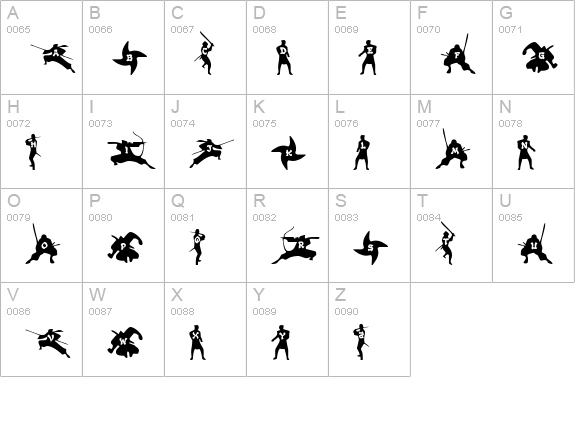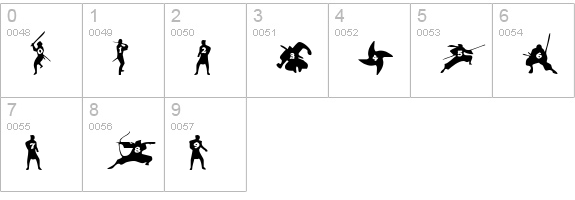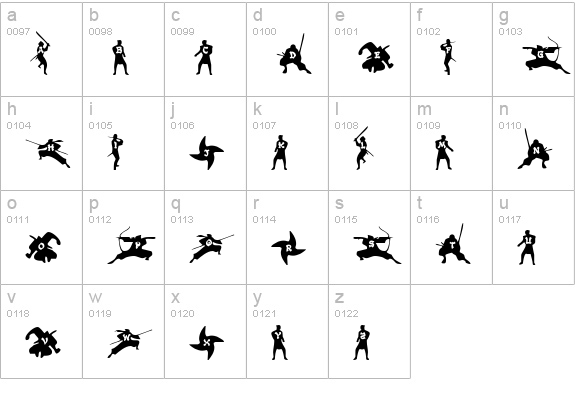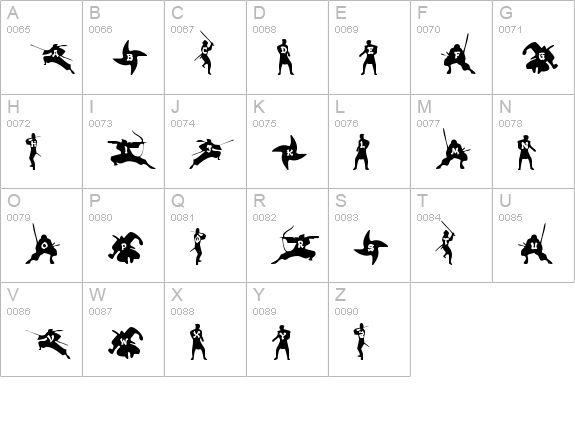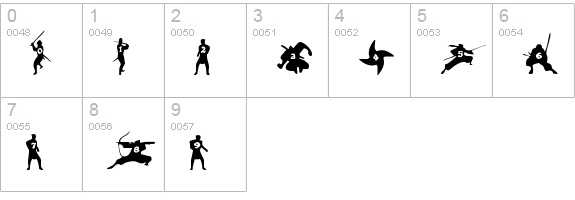
Ninjas Font Details
Introducing Ninjas font, a sleek and stylish typeface inspired by the agility and precision of traditional Japanese warriors. This font exudes a sense of mystery and power, making it perfect for projects that require a touch of stealth and intensity. With its sharp edges and clean lines, Ninjas font is sure to make a bold statement in any design. What's even better is that Ninjas font is completely free to download at FontsMarket.com. So whether you're working on a branding project, a poster design, or any other creative endeavor, you can add a touch of ninja-inspired flair without breaking the bank. Don't miss out on this opportunity to enhance your designs with the dynamic energy of Ninjas font. Download it today and let your creativity soar!